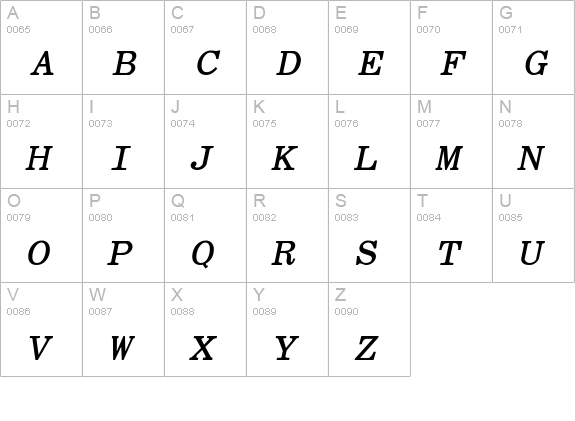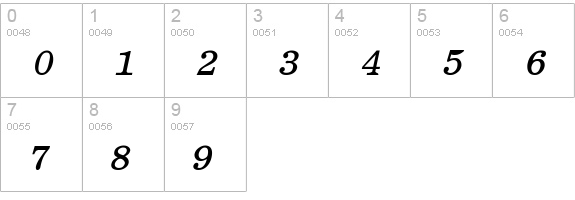
Elite Bold Italic Font Details
Elite Bold Italic is a strong, high-contrast, italic variant in the Elite typeface family \xE2\x80\x94 well suited to headlines, attention-grabbing titles, and strong calls-to-action.
The Elite Bold Italic font is a striking and sophisticated typeface that exudes elegance and modernity. Its bold and italic design makes it perfect for adding a touch of luxury and style to any project. Whether you're designing a logo, creating a poster, or crafting a brand identity, Elite Bold Italic will make your text stand out and capture attention. The sleek lines and distinctive curves of Elite Bold Italic give it a unique and timeless appeal that is both versatile and eye-catching. This font is ideal for conveying a sense of confidence and sophistication in your designs. Best of all, Elite Bold Italic is available for free download at FontsMarket.com. Now you can enhance your projects with this stunning font without having to worry about any costs. Don't miss out on the opportunity to elevate your design work with the elegance and class of Elite Bold Italic. Download it today and see the difference it can make in your creations.